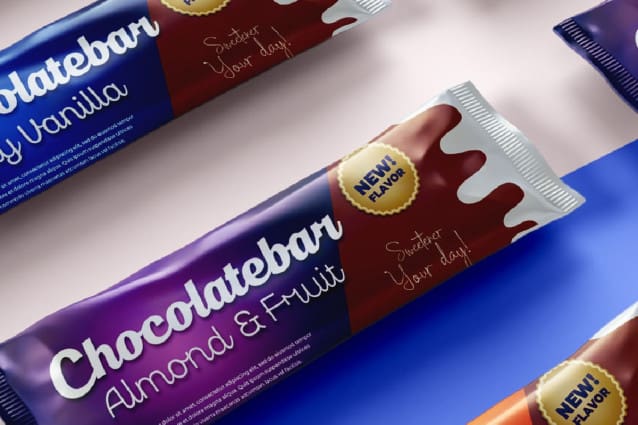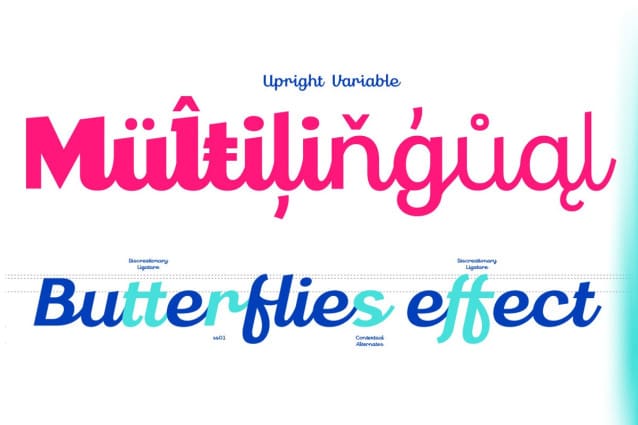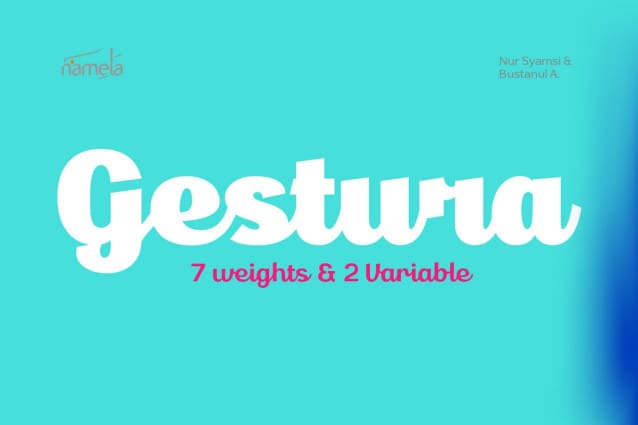
Gestura Script Font
Gestura Script Font is a Modern Script font that defies convention with its distinctive design characteristics. It has a unique combination of design elements that set it apart from other script fonts. The ascender ends with an angled terminal and an upturned tail. Each letter emanates dynamism and flair. The flat terminal provides an intriguing contrast, resulting in a bold and appealing script typeface that creates an indelible impression.
This flexible font family includes 14 variants ranging from light to black, each with accompanying italics. Furthermore, Gestura Script typeface has two Variable typeface styles: upright and oblique, offering you unrivaled versatility in your creative creations. Whether you’re working on branding, advertising, or any other creative project that requires a bold but elegant script. Gestura Script typeface is the ultimate typographic tool. It’s a font that mixes innovation and heritage, ready to give your designs a bold and distinct look.